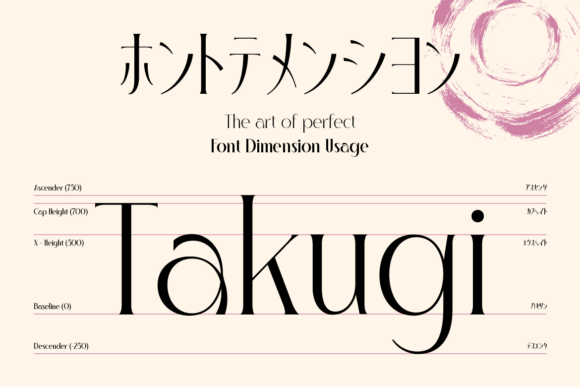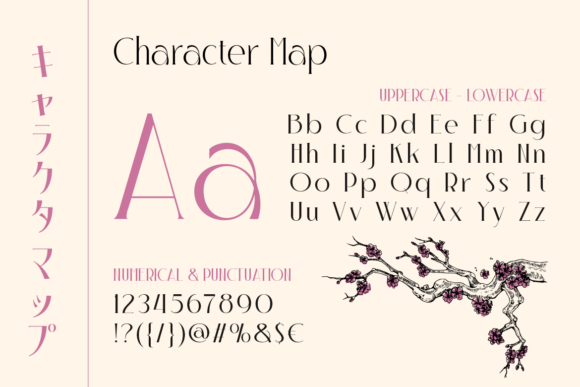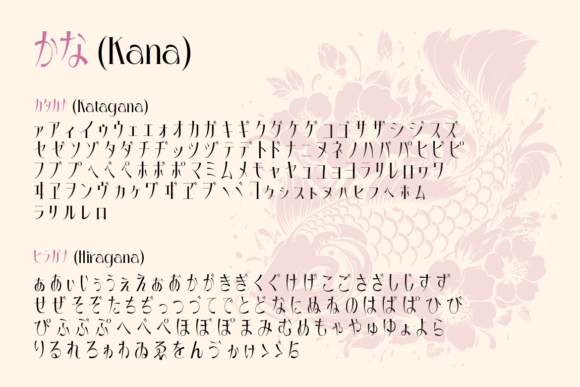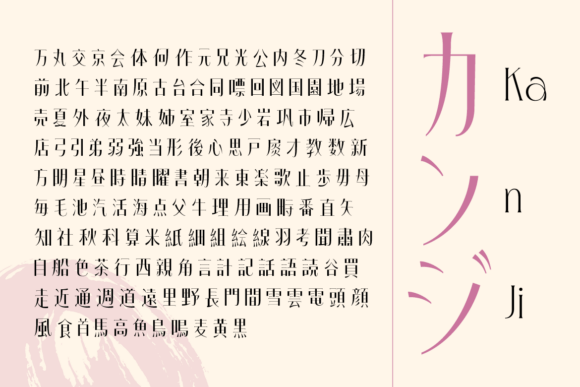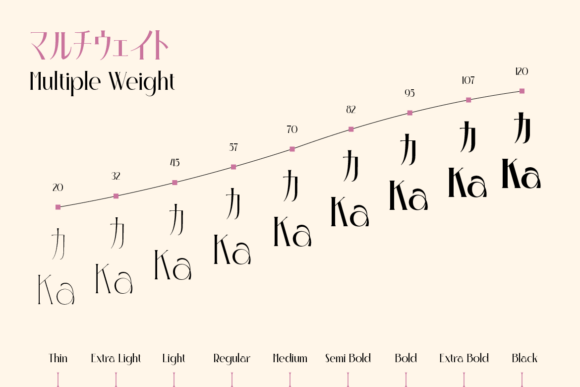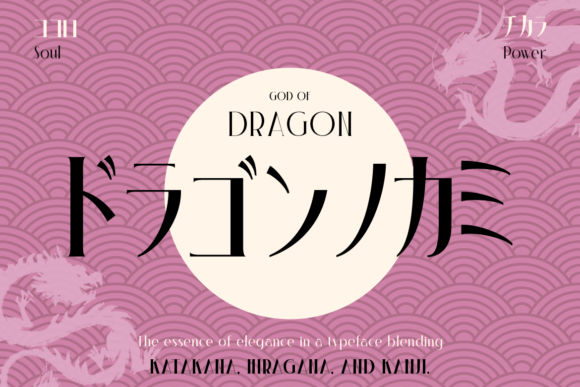
Introduction to Irazhumi Font
Irazhumi is a graceful serif typeface that blends modern editorial aesthetics with delicate Japanese flair.
Crafted with precision, this font family features both Latin and full Japanese scripts—including Hiragana, Katakana, and commonly used Kanji characters—making it a rare gem for multilingual design Its tall x-height, sharp contrast, and sculpted curves evoke a sense of refinement and authority, while the flowing Japanese strokes add a poetic, organic rhythm.
Key Features of Irazhumi Font
Why Choose Irazhumi Font?